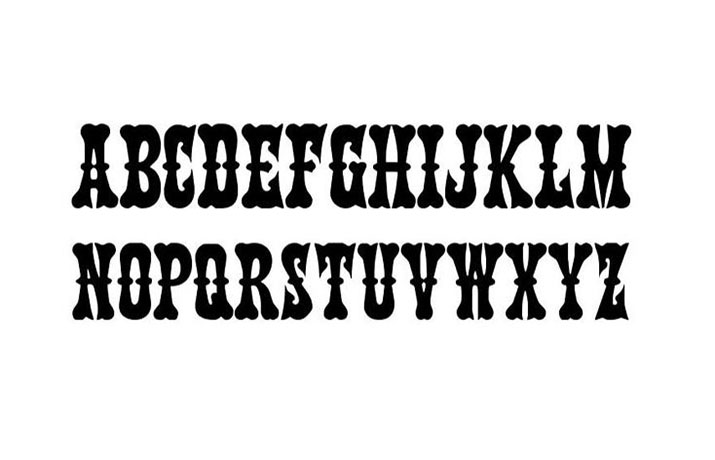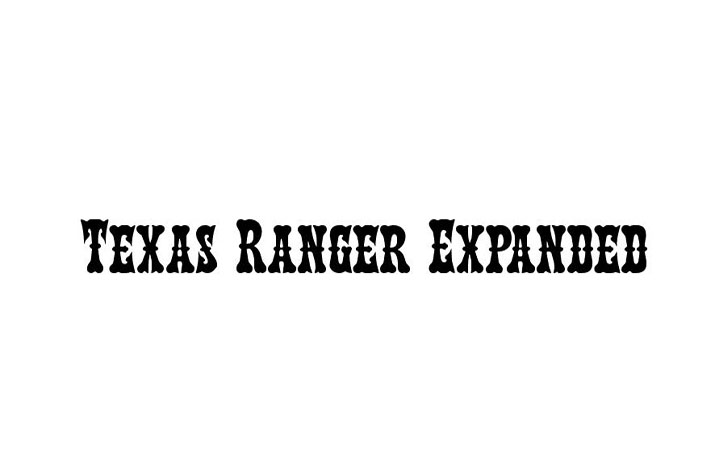
Texas Ranger Expanded Font is a fancy western typeface that has a bold and impactful look. It was designed and published by Daniel Zadorozny.
All the texture is crafted by the designer with a decorative and slightly rough appearance. That is “inspired by the Wild West aesthetic“. You will see this type of typography in vintage Western signage.
Its bold and eye-catching texture makes it an excellent choice for various purposes such as headlines logos, western themes events, movie titles, flyers, and marketing materials.
- This elegant typeface is perfect for billboards or posters, logotypes, headlines, game titles, magazine covers, posters, fantastic emblems, card printing, product designs, game titles, special event cards, and much more.